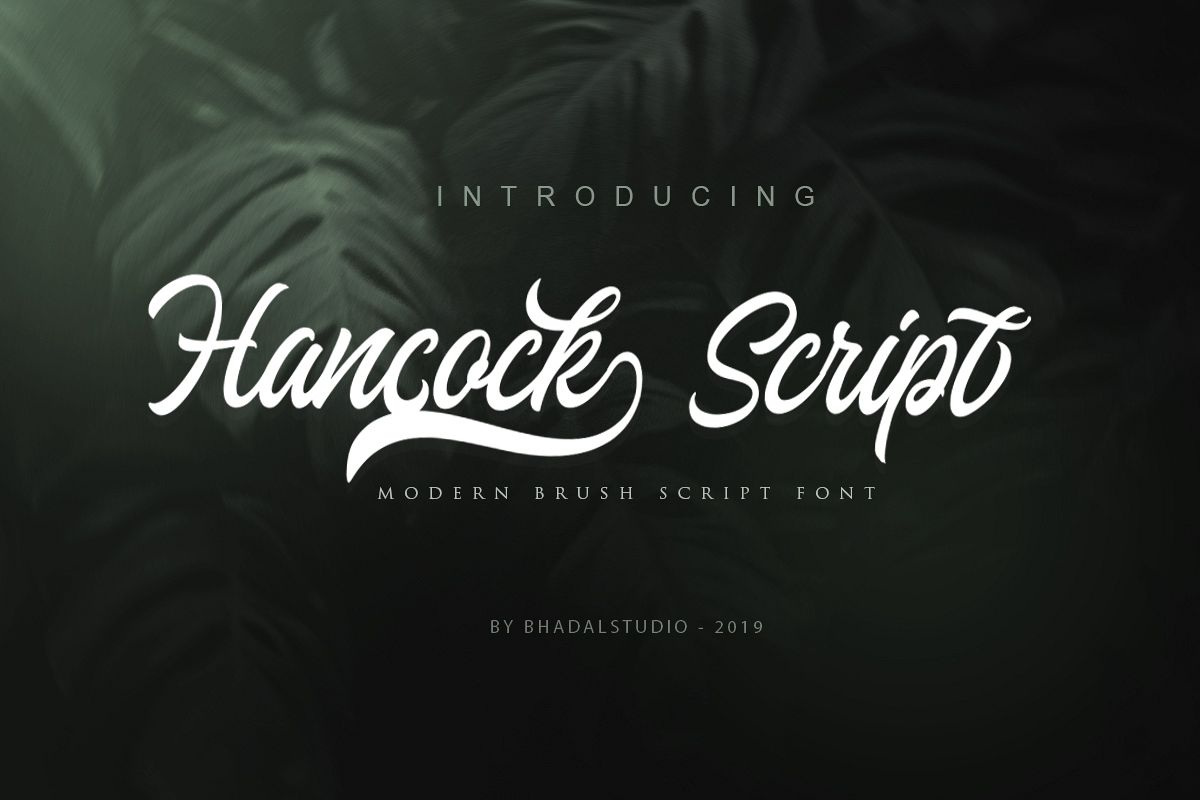
Hancock Script
Introducing my new font Hancock Script
A casual script typeface and combination with Hand Lettering style was created to help you designing brand of yours own or your client, and you also can use it for a logotype, product designs, label, watermark, social media posts, apparel, invitation, signboard, sport club, motor/car, etc.